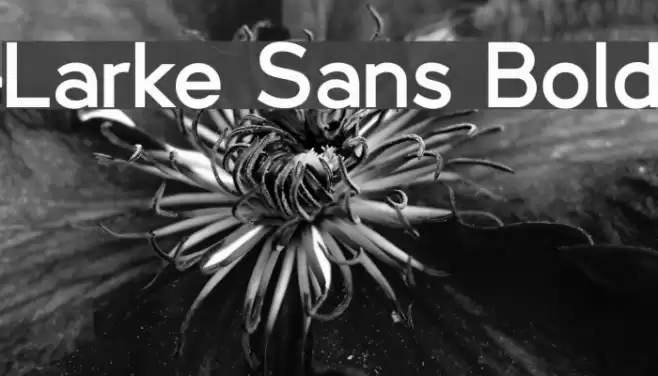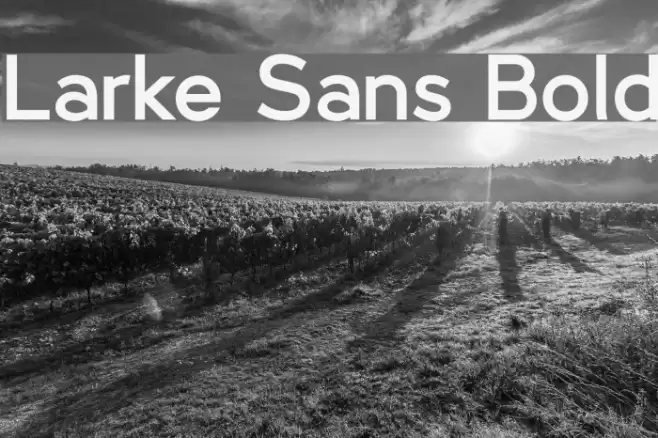
Larke Sans Bold Font
Larke Sans Bold Description
This font is a bold, sans-serif typeface characterized by its clean and modern appearance. The letters are evenly weighted, providing a strong and confident look. The uppercase and lowercase letters maintain a consistent height, contributing to a uniform and balanced design. The numerals are clear and legible, making them suitable for various applications. The special characters are distinct and well-defined, ensuring versatility in usage. Overall, this typeface is ideal for projects that require a bold and contemporary aesthetic.
A bold, modern sans-serif font with a clean and uniform design from Uncategorized fonts.
- Proposed Projects: Ideal for branding, advertising, headlines, and digital content where a strong and modern look is desired.
- Use Case: Headlines, Logos, Branding